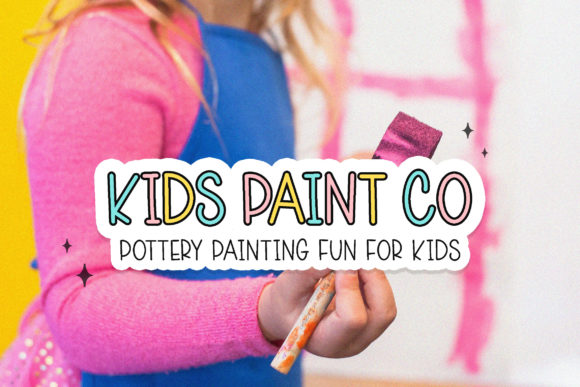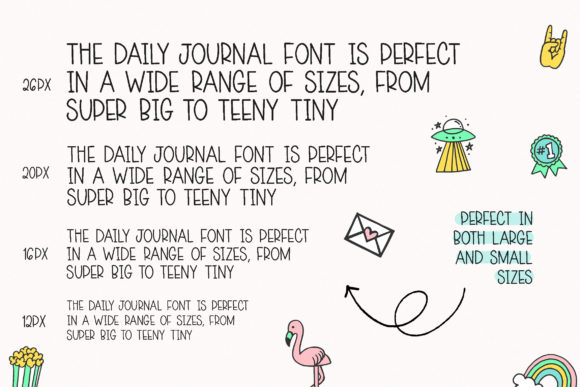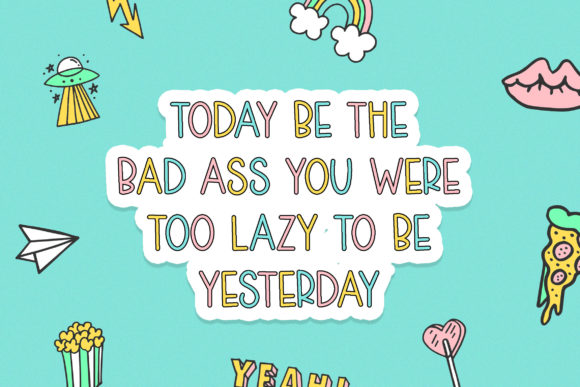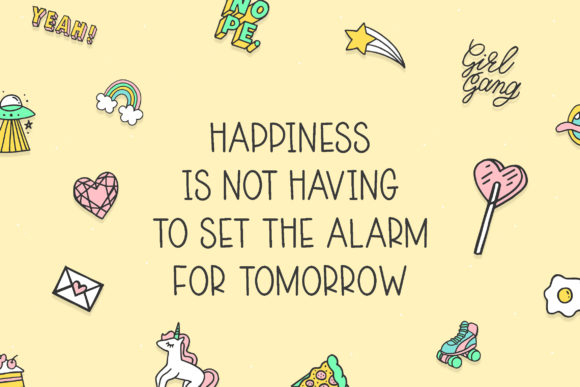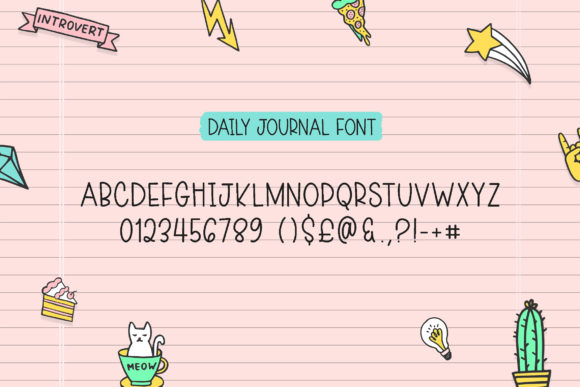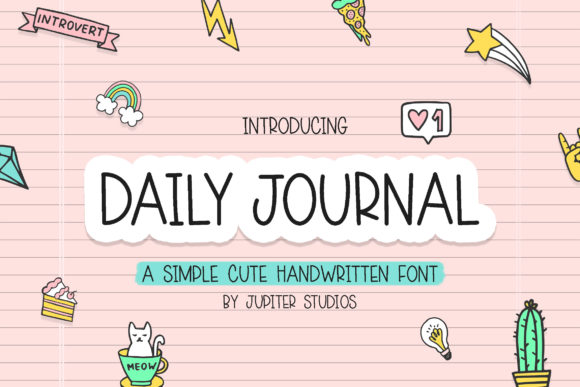
Discover the Charm of Daily Journal Font: Elevate Your Designs with a Personal Touch
In the world of design, fonts play a crucial role in conveying the tone and personality of a project. For designers and crafters seeking a font that exudes warmth, simplicity, and authenticity, Daily Journal Font is an excellent choice. This delightful, handwritten font is perfect for creating chalkboard quotes, teaching materials, and various design projects that require a personal touch.
What is Daily Journal Font?
Daily Journal Font is a cute and simple lettered handwritten font, carefully crafted to bring a touch of realism to your designs. Its authentic look and feel make it an ideal choice for creating materials that require a personal and humanizing element. Whether you’re working on educational resources, social media graphics, or marketing materials, this font is sure to impress.
Key Features of Daily Journal Font
- Handwritten Style: Daily Journal Font boasts a beautiful, handwritten style that adds a personal touch to any design project.
- Simple and Cute: The font’s simplicity and cuteness make it versatile and easy to read, perfect for a wide range of applications.
- Authentic Look: Its authentic, lettered handwritten appearance gives designs a realistic feel that’s hard to replicate with more formal fonts.
- Chalkboard Aesthetic: The font’s style is reminiscent of chalkboard writing, making it ideal for chalkboard quotes, classroom materials, and educational resources.
Use Cases for Daily Journal Font
Daily Journal Font’s versatility makes it suitable for various design projects. Here are some popular use cases:
- Educational Materials: Create engaging and easy-to-read teaching resources, such as worksheets, posters, and lesson plans.
- Chalkboard Quotes: Add a personal touch to your inspirational quotes, motivational sayings, and fun phrases for social media or blog posts.
- Crafting and DIY Projects: Use the font to create titles, headings, and descriptions for your crafting and DIY tutorials, patterns, and guides.
- Marketing and Social Media: Incorporate Daily Journal Font into your marketing materials, such as flyers, brochures, and social media graphics, to give them a friendly and approachable feel.
Tips for Using Daily Journal Font Effectively
To get the most out of Daily Journal Font, consider the following tips:
- Pair with Other Fonts: Combine Daily Journal Font with other fonts to create visual interest and hierarchy in your designs.
- Experiment with Colors: Take advantage of the font’s chalkboard aesthetic by using bright, bold colors that evoke a sense of playfulness and creativity.
- Keep it Simple: Don’t overcomplicate your design. The simplicity of Daily Journal Font is part of its charm, so let it shine by keeping your design clean and uncluttered.
Daily Journal Font is a charming, handwritten font that can elevate your designs with its personal and realistic feel. Its versatility, simplicity, and authenticity make it an excellent choice for designers and crafters working on various projects, from educational materials to marketing and social media graphics. By incorporating Daily Journal Font into your design toolkit, you’ll be able to create engaging, easy-to-read, and visually appealing materials that capture the hearts of your audience.